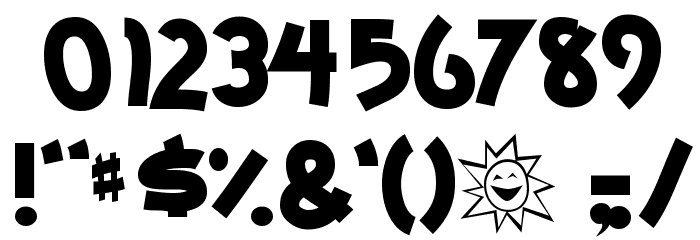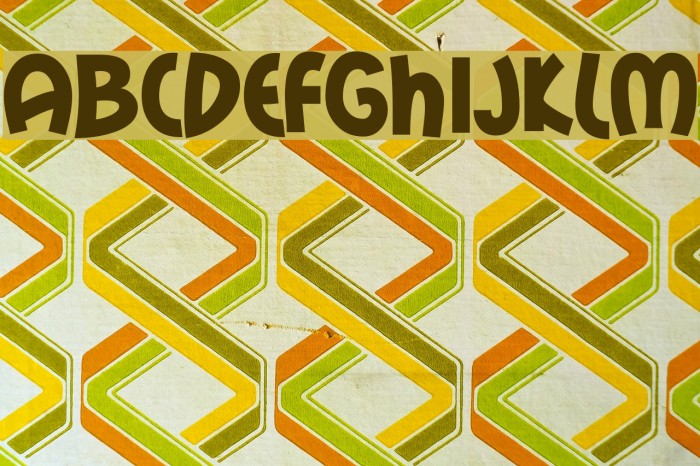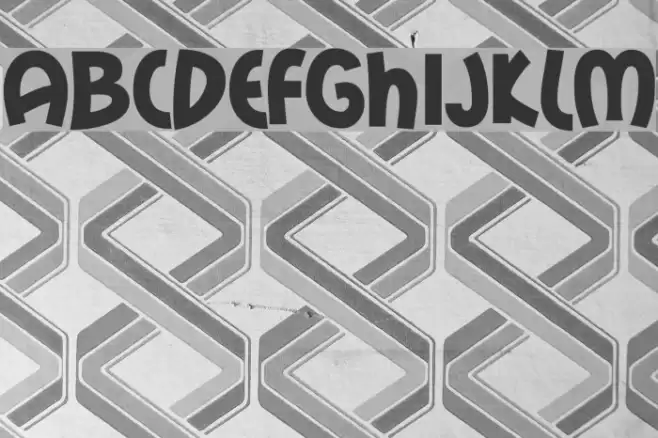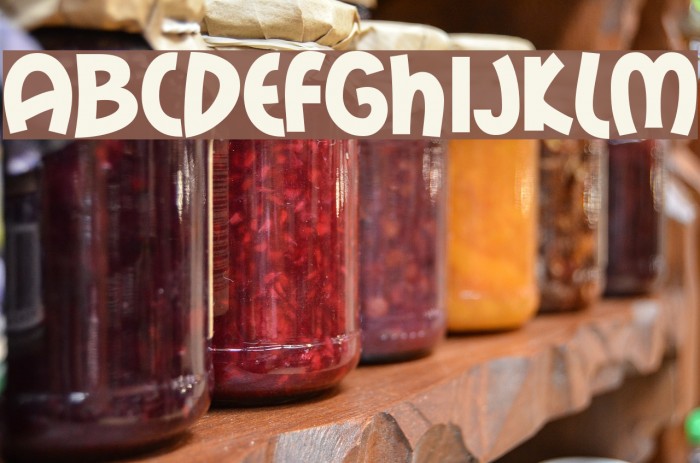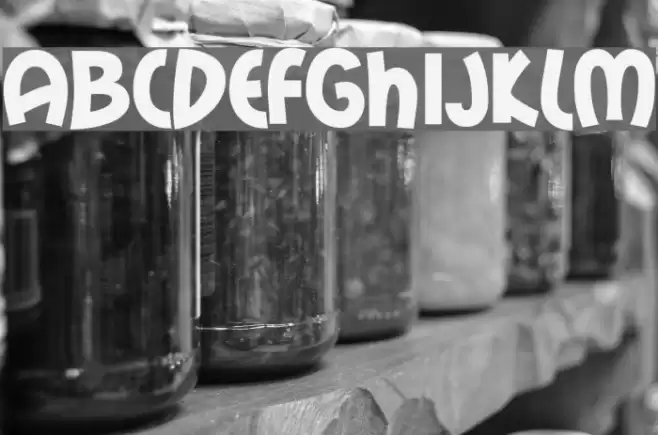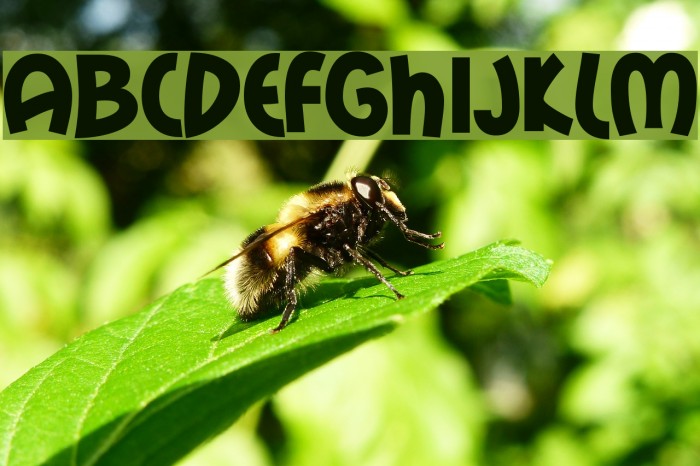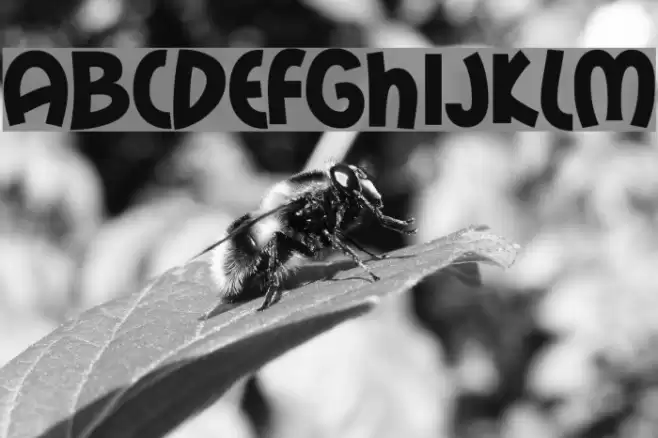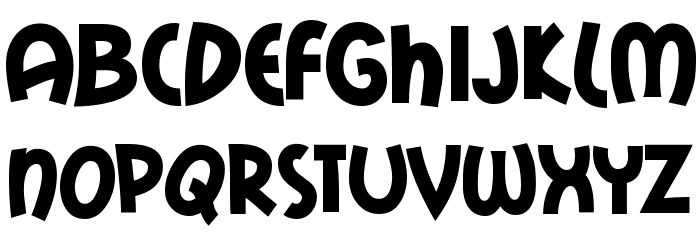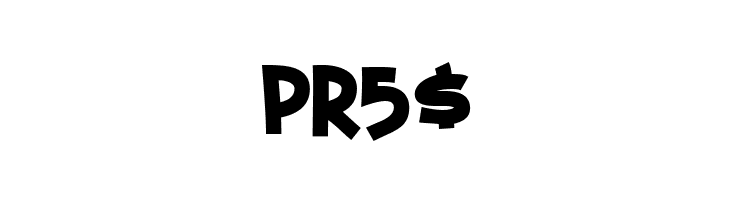
Mail Ray Stuff Font
| 全体的なスタイル | Playful, Whimsical |
| おすすめプロジェクト | Ideal for children's books, playful branding, posters, and creative invitations. |